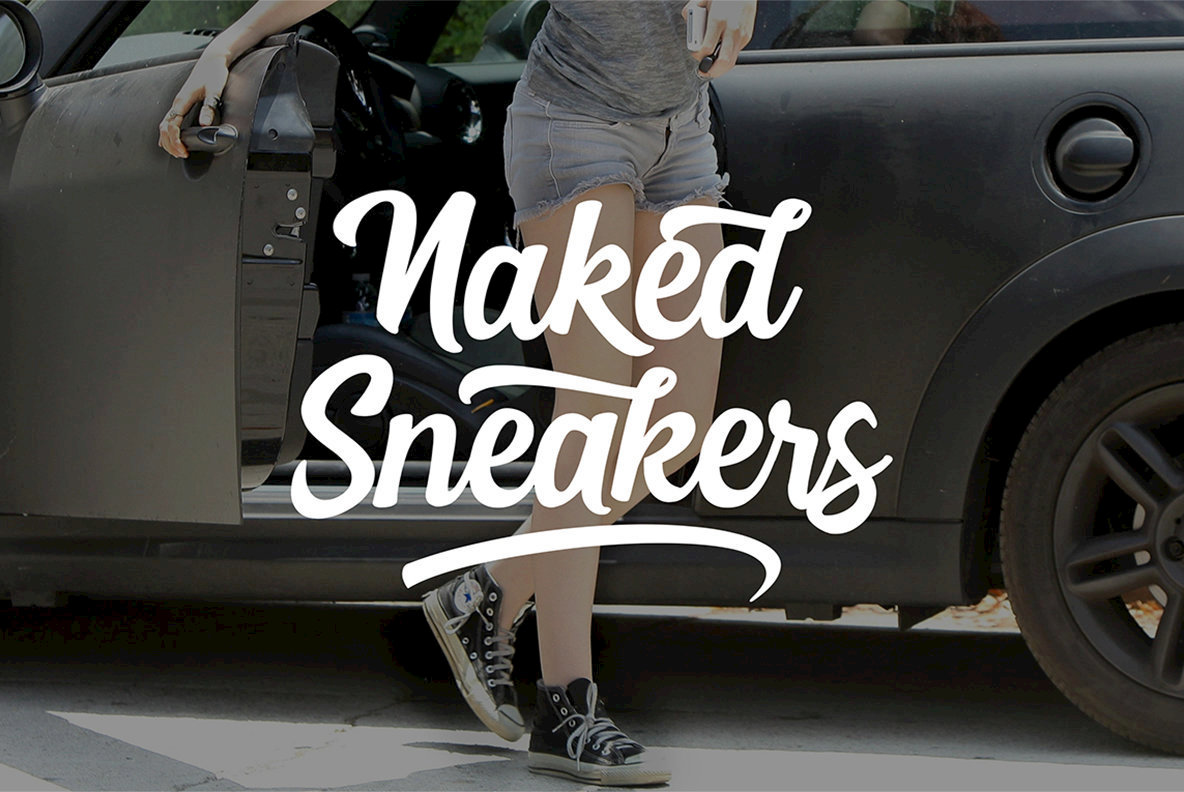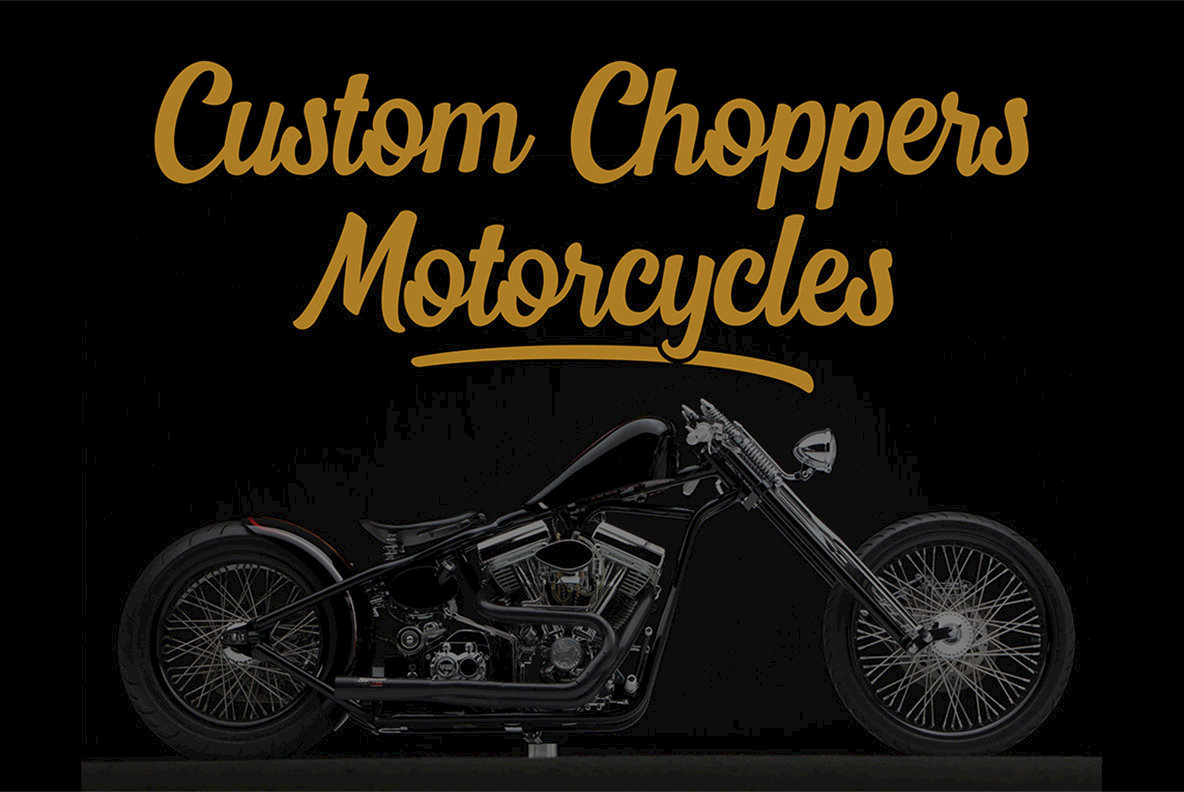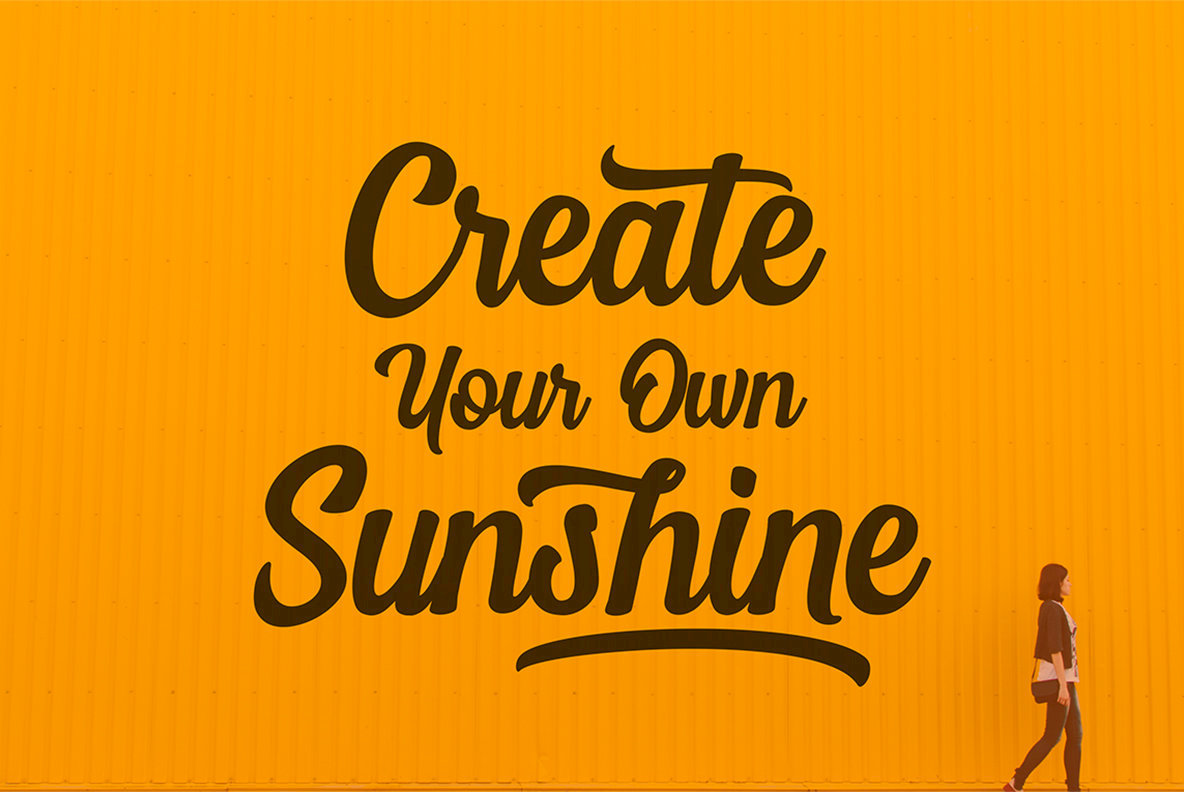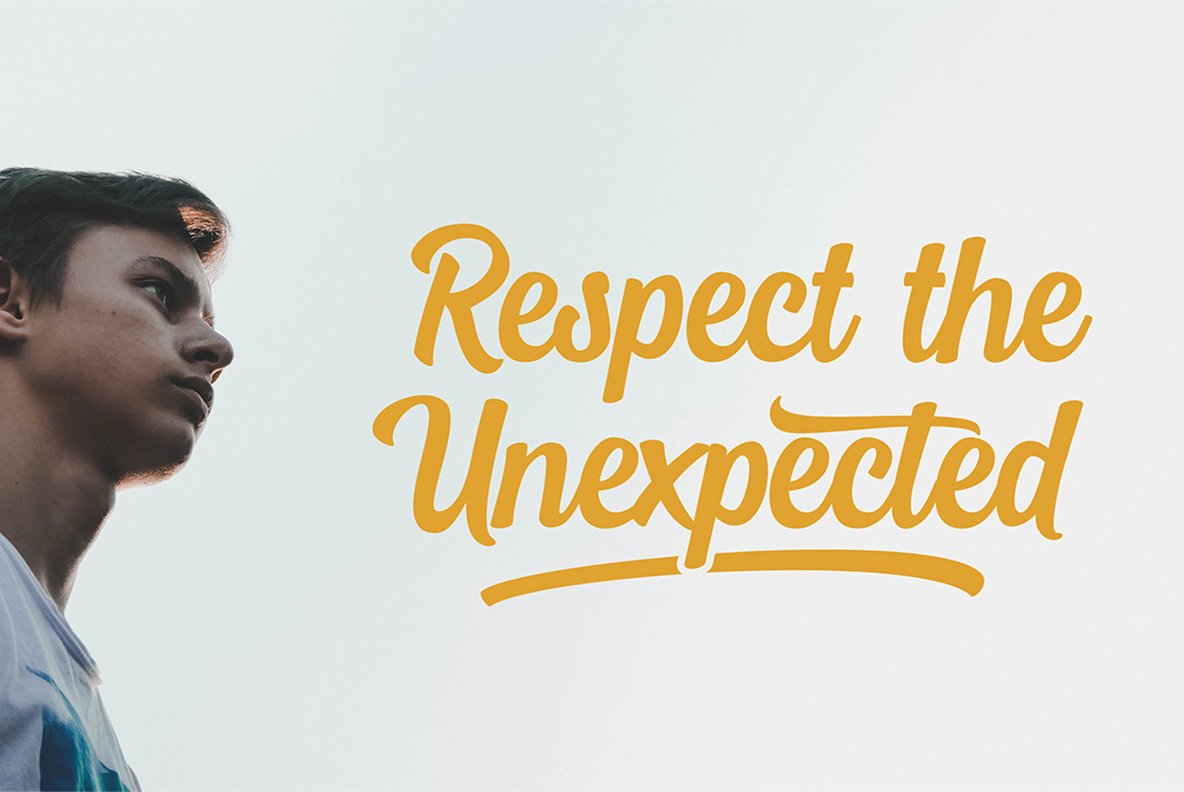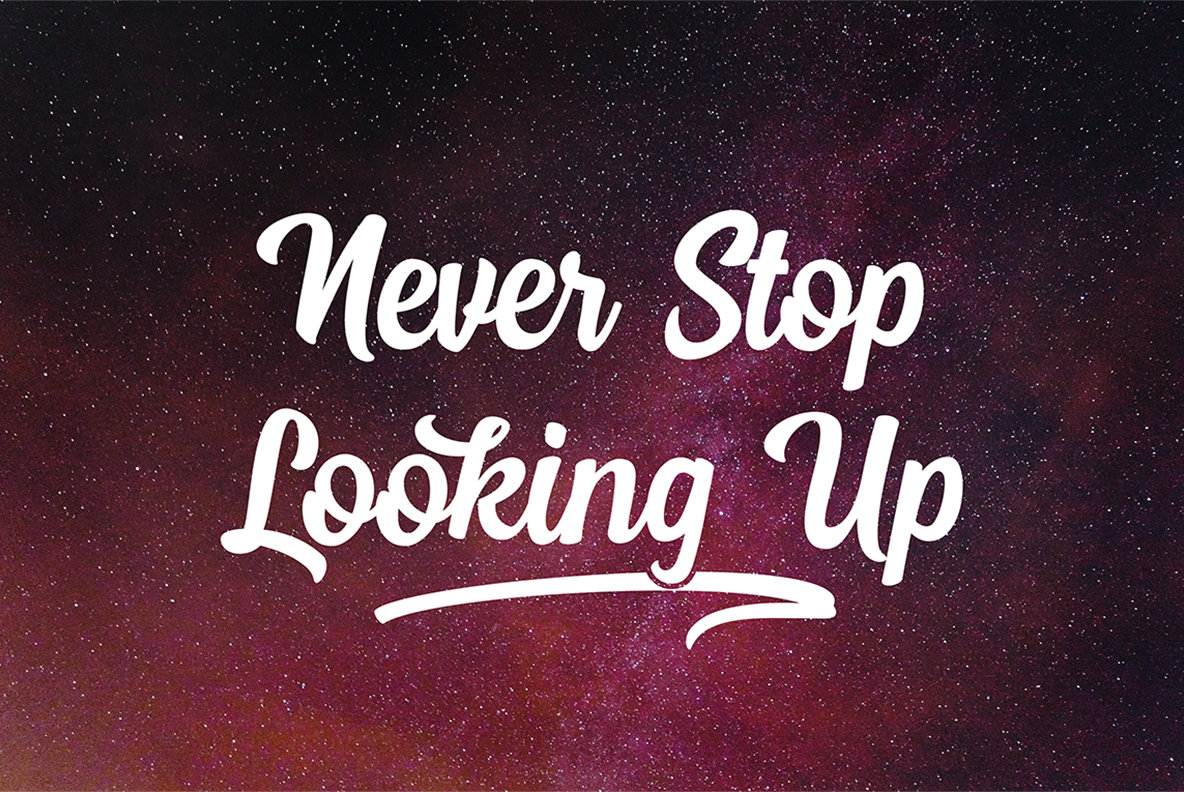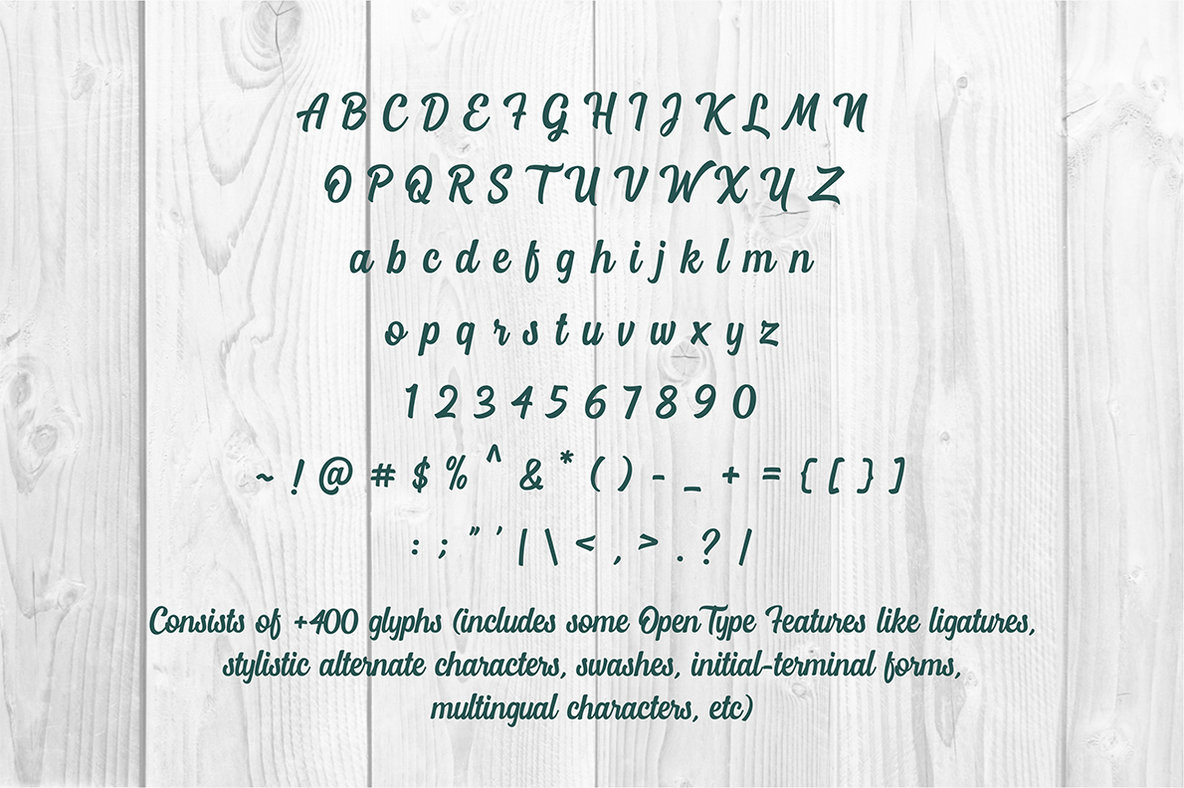
Mostley Script Font
Inspired by brush hand lettering with traditional style painting. Crafted carefully to show dynamic flow, and rustic sense. You can use it for all your needs, such as a logo, badge, insignia, packaging, headline, poster, t-shirt/apparel, greeting card, and wedding invitation.
Mostley is available with many variations and swash bonuses. Consist of +400 glyphs (includes some OpenType Features like ligatures, Stylistic Alternate Characters, Swashes, Multilingual Characters, etc).